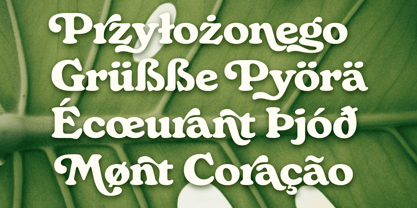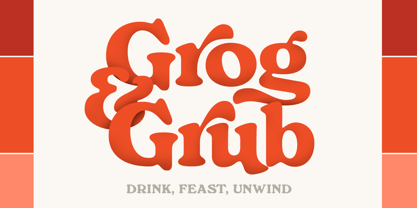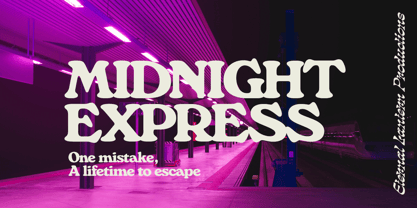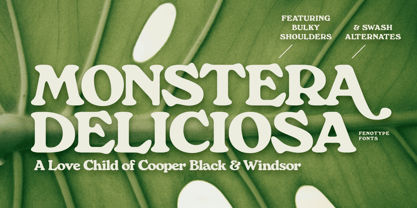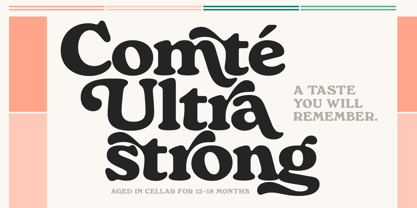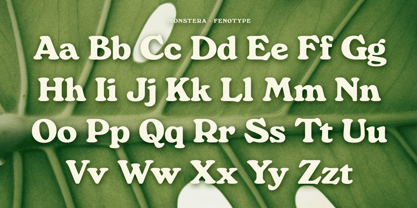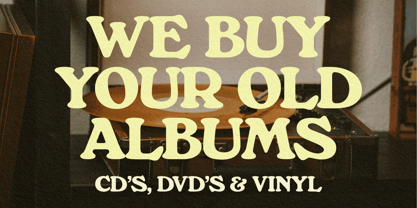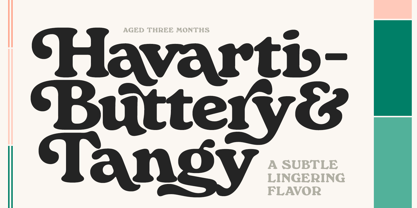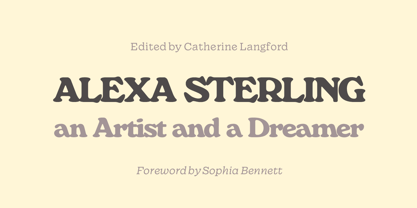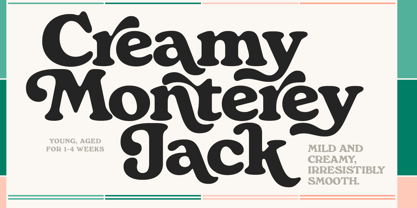
Monstera Deliciosa
by Fenotype
The Monstera Deliciosa Font Family was designed by Emil Karl Bertell and published by Fenotype. Monstera Deliciosa contains 1 styles. More about this family
Monstera Deliciosa is a nostalgic, heavy serif font that blends the best of two iconic typefaces—Cooper Black and Windsor. Drawing its character shapes from Windsor and a soft, inviting feel from Cooper Black, Monstera Deliciosa offers a bold, vintage aesthetic with modern versatility. Complete with Swash Alternates, it’s perfect for adding a playful yet timeless touch to your designs.
Designers: Emil Karl Bertell
Foundry: Fenotype